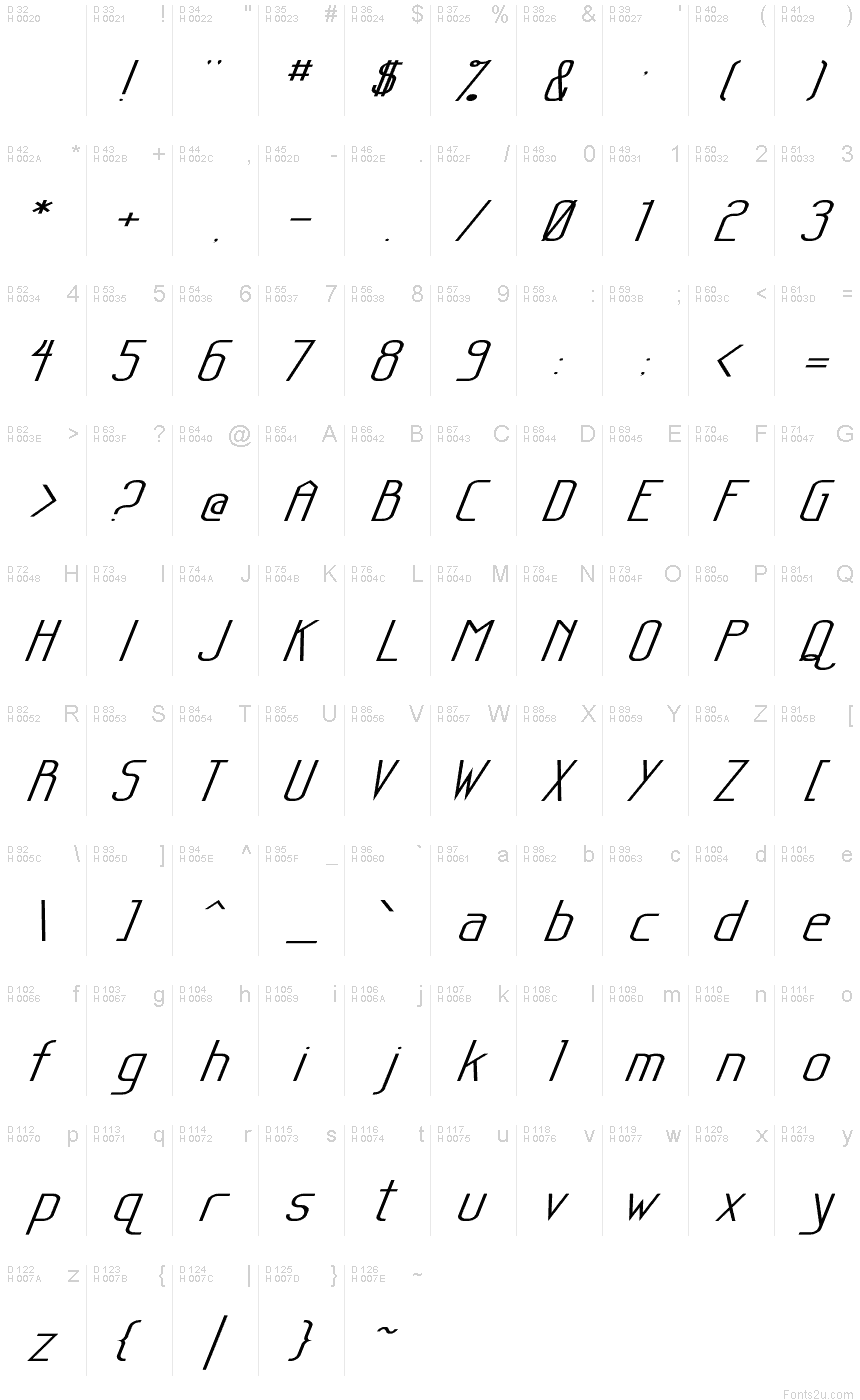
Sanity Wide Italic
Sanity Wide Italic by Dan Redding is a free modern display italic with a smooth late-90s, techno-pop attitude. The letters lean hard and stretch into long, clean strokes, while the rounded corners keep it from feeling cold; that mix gives the alphabet a sleek, gliding rhythm.
It works well for fashion wordmarks, music flyers, poster headlines, magazine cover lines, and title cards where a few words need motion more than gravity. As a free font, it also suits splash screens and short branding lockups, because the slanted, streamlined shapes feel fast and a little futuristic without turning into pure novelty.